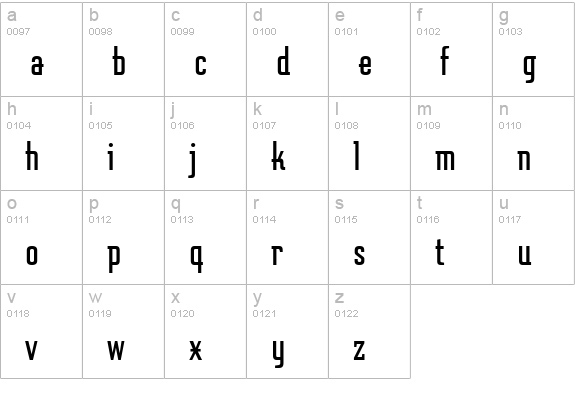
Graficz Font Details
Introducing Graficz font - a sleek and modern typeface that exudes sophistication and elegance. With its clean lines and versatile style, Graficz is the perfect choice for a wide range of design projects, from branding to editorial layouts. What sets Graficz font apart is not only its timeless aesthetic but also the fact that it is available for free! Yes, you read that right - you can download this stunning font at no cost from FontsMarket.com. Whether you're working on a logo design, a website layout, or a print advertisement, Graficz font will elevate your project and make a lasting impression. Don't miss out on this fantastic opportunity to enhance your designs with this high-quality and visually appealing typeface. Download Graficz font today and take your creativity to the next level!